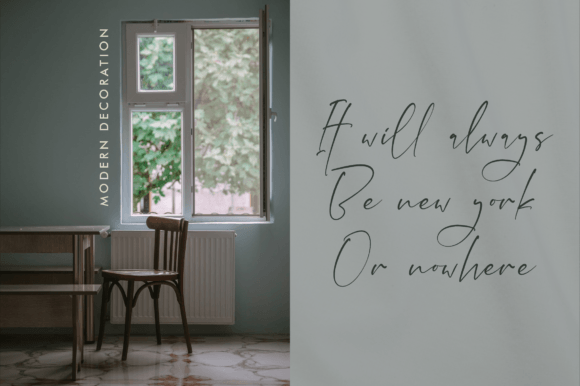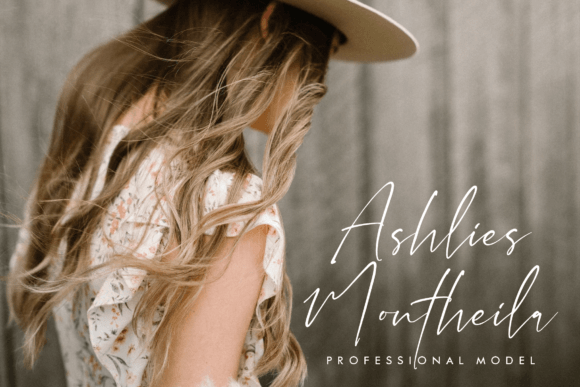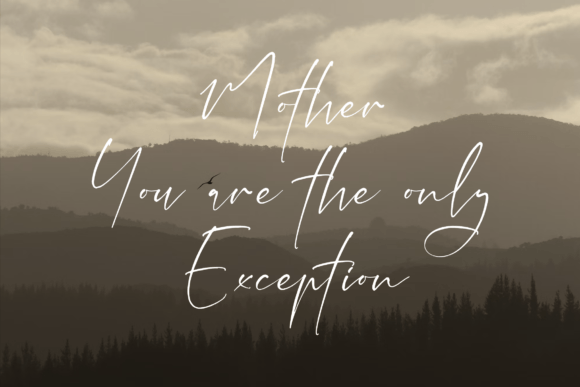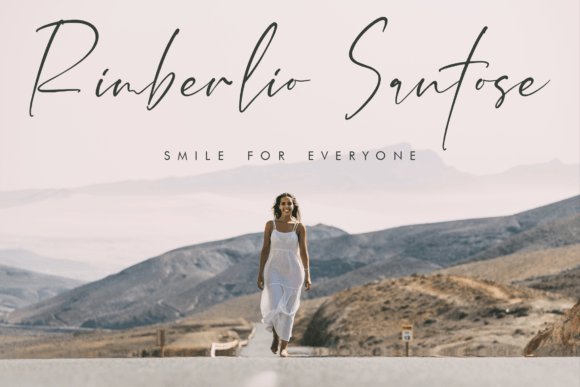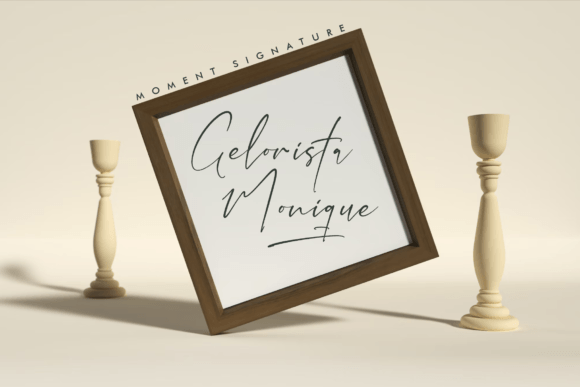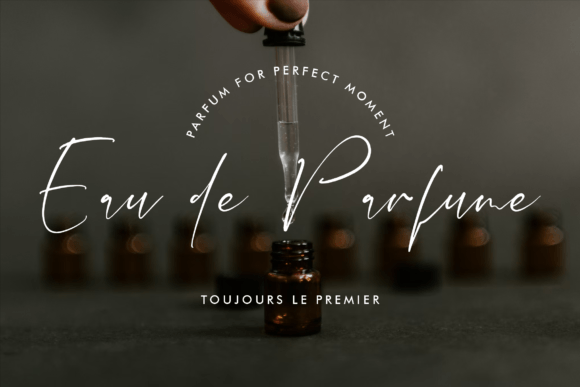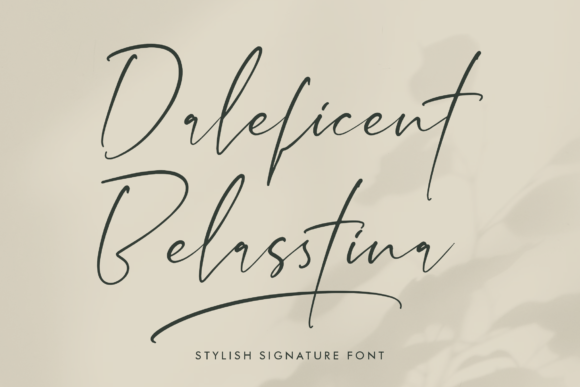
Proudly Present Daleficent Belasstina – Stylish Signature Font
Are you looking for a font that exudes luxury, elegance, and modernity? Look no further than Daleficent Belasstina, a stylish signature font that is sure to elevate your design game. This beautiful script font boasts a unique style and contemporary look, making it perfect for a wide range of design applications.
What Makes Daleficent Belasstina Special?
Daleficent Belasstina is a luxury script font that is designed to make a statement. Its elegant and refined lines, combined with its modern aesthetic, make it an ideal choice for designers and crafters who want to create stunning visual content. Whether you’re working on a logo, book or movie title design, fashion brand, magazine, or clothing, this font is sure to impress.
Key Features of Daleficent Belasstina Font
- Unique Style: Daleficent Belasstina has its own distinct style that sets it apart from other fonts. Its elegant lines and curves make it perfect for creating sophisticated designs.
- Modern Look: This font has a contemporary aesthetic that is sure to appeal to designers and crafters who want to create modern and trendy designs.
- High Versatility: Daleficent Belasstina is a highly versatile font that can be used for a wide range of design applications, from logos and titles to magazines and clothing.
- Elegant and Luxurious: This font exudes luxury and elegance, making it perfect for high-end designs and brands.
Use Cases for Daleficent Belasstina Font
Daleficent Belasstina is a highly versatile font that can be used for a wide range of design applications. Here are some use cases where this font truly shines:
- Logo Design: Create a stunning logo for your brand with Daleficent Belasstina. Its elegant and luxurious aesthetic makes it perfect for high-end brands.
- Book or Movie Title Design: Add a touch of elegance to your book or movie title design with this beautiful script font.
- Fashion Brand: Use Daleficent Belasstina to create a stylish and sophisticated brand identity for your fashion label.
- Magazine: Create a stunning magazine with this elegant font. Its modern look and luxurious aesthetic make it perfect for high-end publications.
- Clothing: Use Daleficent Belasstina to create stylish and eye-catching clothing designs.
- Lettering: Create beautiful lettering with this elegant font. Its unique style and modern look make it perfect for creating stunning hand-lettered designs.
- Quotes: Use Daleficent Belasstina to create inspiring and elegant quotes that are sure to impress.
Why Choose Daleficent Belasstina Font?
There are many reasons why you should choose Daleficent Belasstina for your next design project. Here are a few:
- Unique Style: This font has a unique style that sets it apart from other fonts.
- High Quality: Daleficent Belasstina is a high-quality font that is designed to deliver exceptional results.
- Elegant and Luxurious: This font exudes luxury and elegance, making it perfect for high-end designs and brands.
- Highly Versatile: Daleficent Belasstina can be used for a wide range of design applications.
In conclusion, Daleficent Belasstina is a stylish signature font that is sure to elevate your design game. Its unique style, modern look, and luxurious aesthetic make it perfect for a wide range of design applications. Whether you’re a designer or crafter, this font is sure to impress. So why wait? Download Daleficent Belasstina today and start creating stunning designs that exude luxury and elegance.